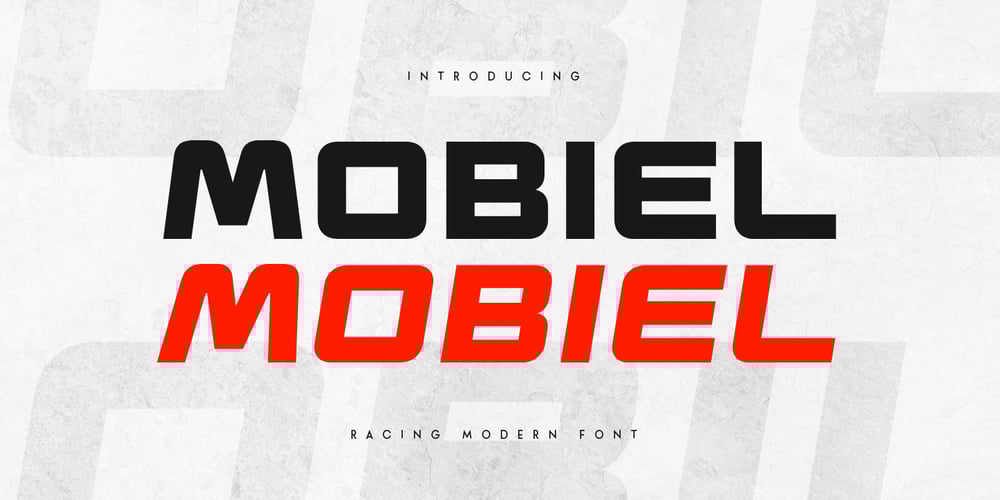
Mobiel Font Family was designed by Zamroni Hamzah and published by Sensatype Studio. Mobiel contains 2 styles and family package options. Mobiel, a Racing Car Modern Font that created special for Branding, Title and more stand out typography for sport and action. It’s so perfect to add your style and headline overview for sport, technology, actions, and fighting theme. And specially for this font, we crafted for bold racing style and modern feels so enjoy to create any project that will show your main idea out.Mobiel Modern Racing Car Font ready with: Regular and Italic Version Creative characters prepared to get best results 4 files format already Preview as a inspirations that you can do with Mobiel font Ready with Uppercase and Lowercase characters Wish you enjoy our font. ๐